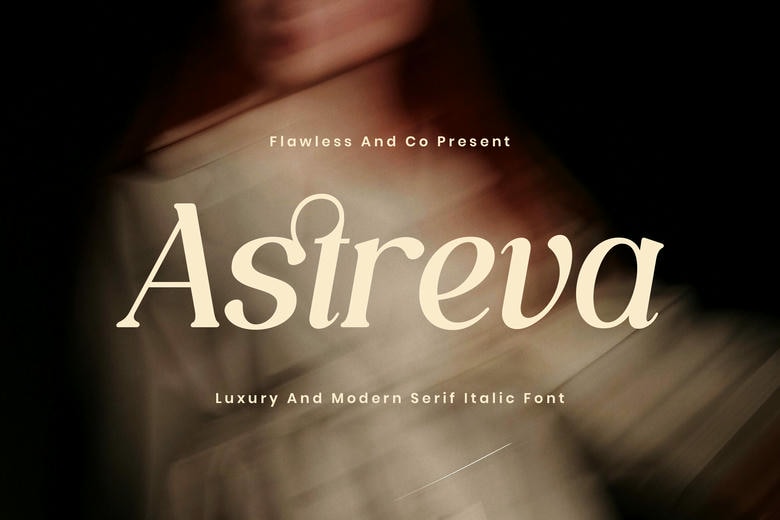
Astreva Font
Astreva is a luxury modern serif font that combines timeless elegance and contemporary aesthetic. Featuring elegant curves, smooth serif information, stylish italic shapes, Astreva provides a high-quality aesthetic, which is high-end and luxurious.
Astreva Serif Font